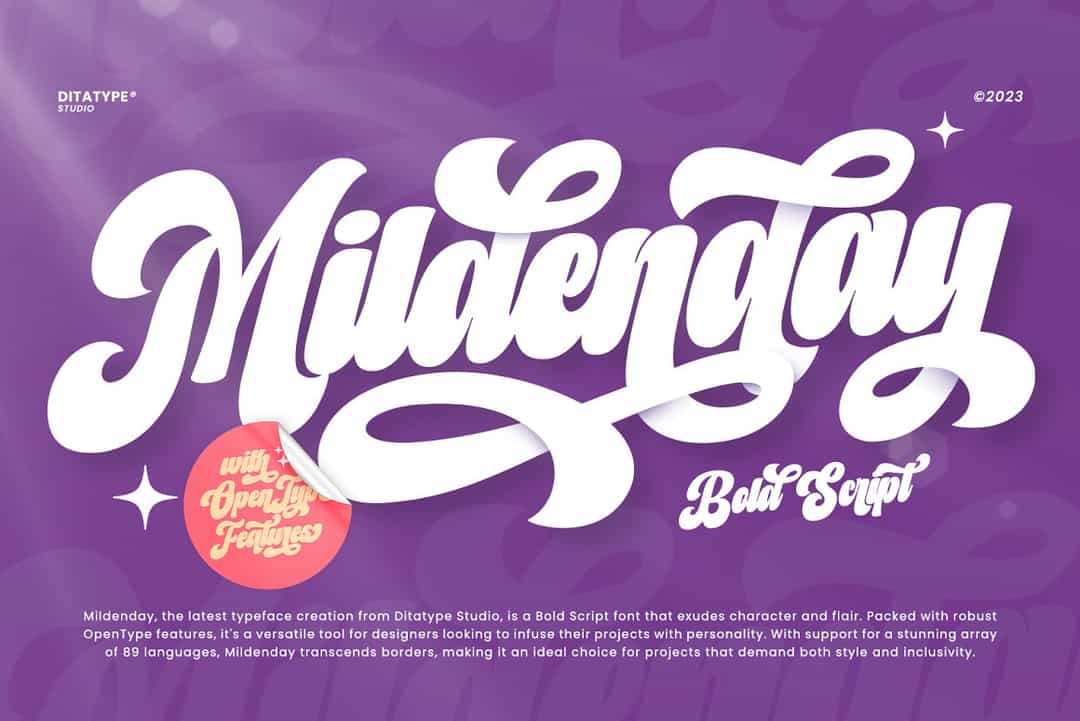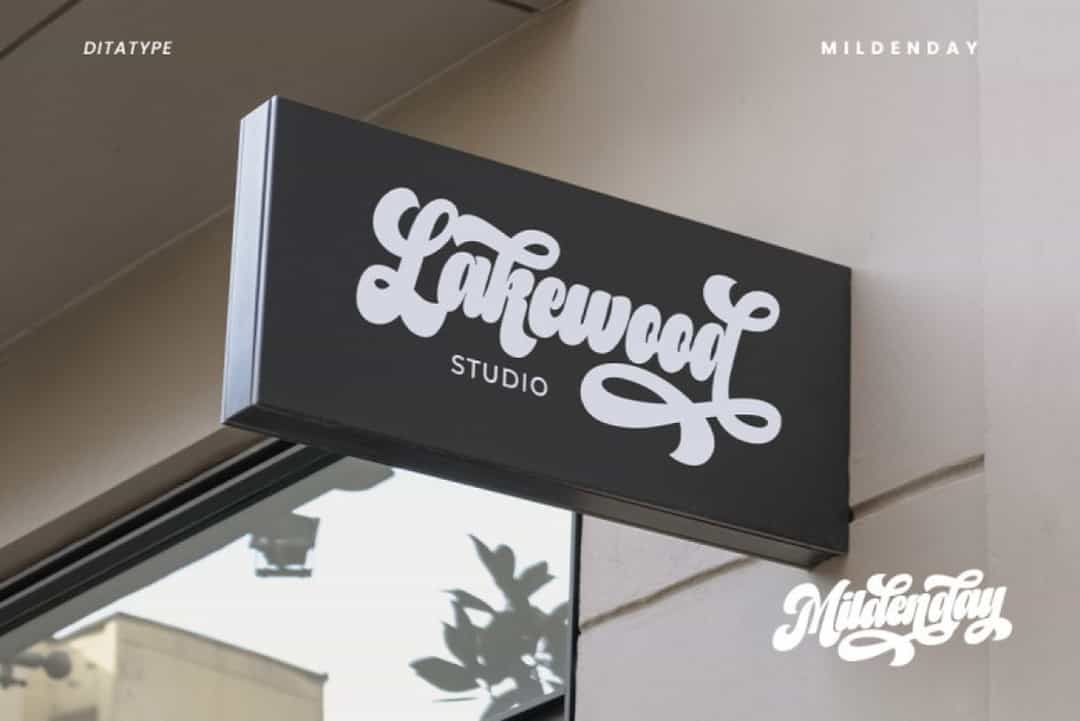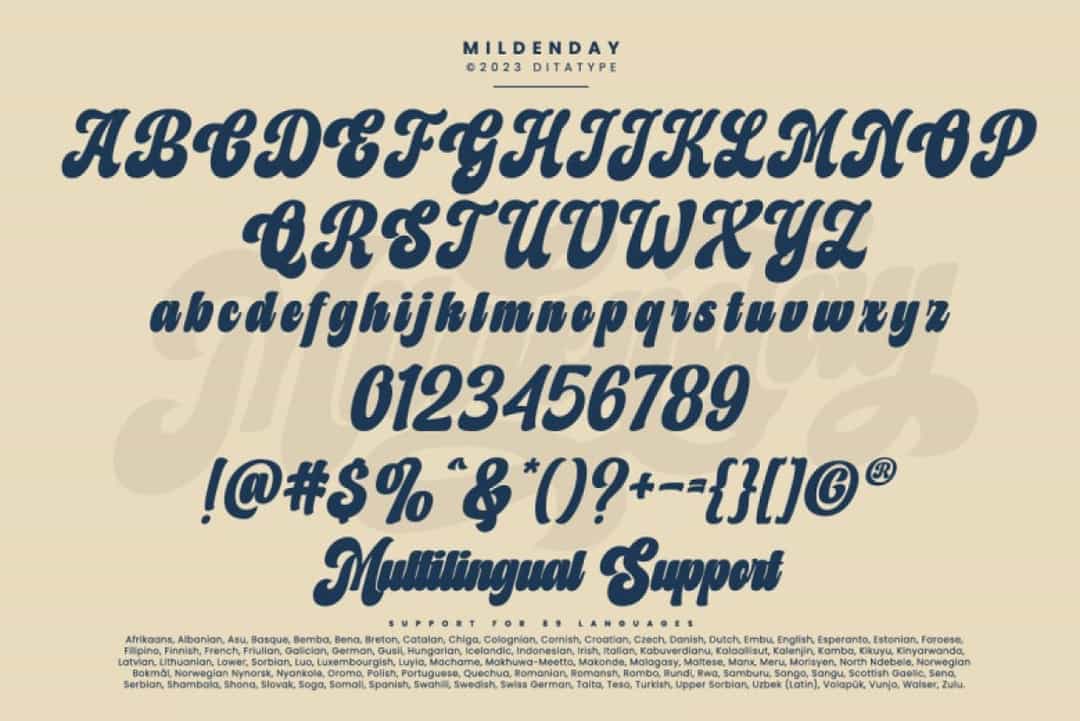
Mildenday is an elegant yet powerful script type font, which beautifully marries elegance and boldness. Its weighty font guarantees your text will make a strong, memorable statement while remaining legible; plus its swing endings lend movement and life to any text! Mildenday has an artistic, low contrast design which gives her a contemporary and balanced appearance.